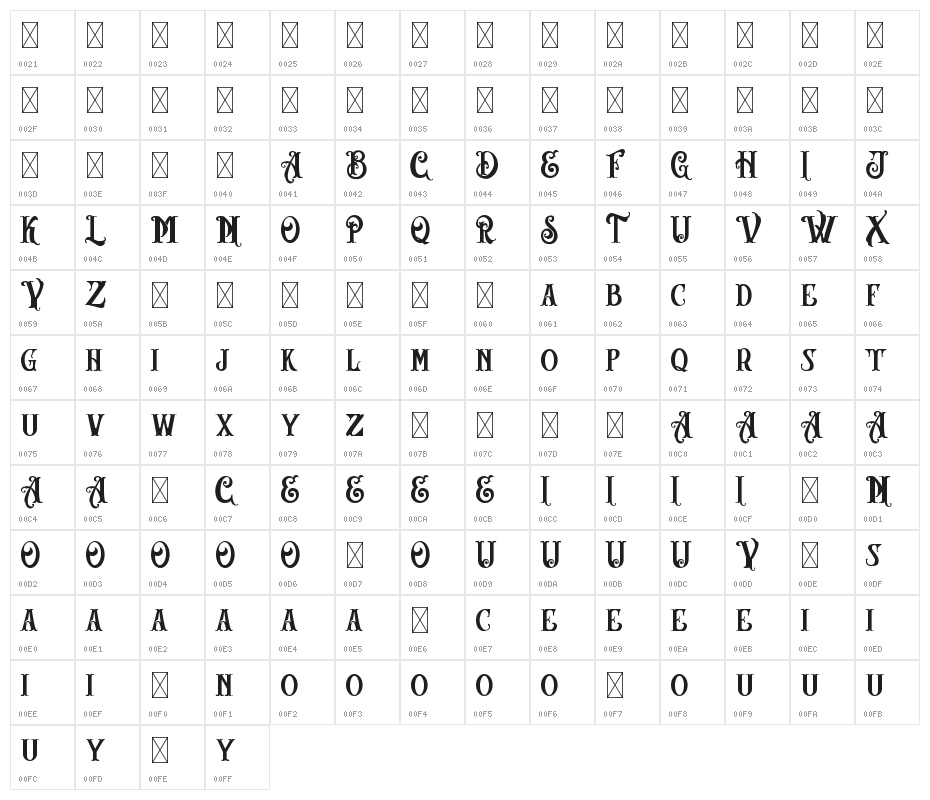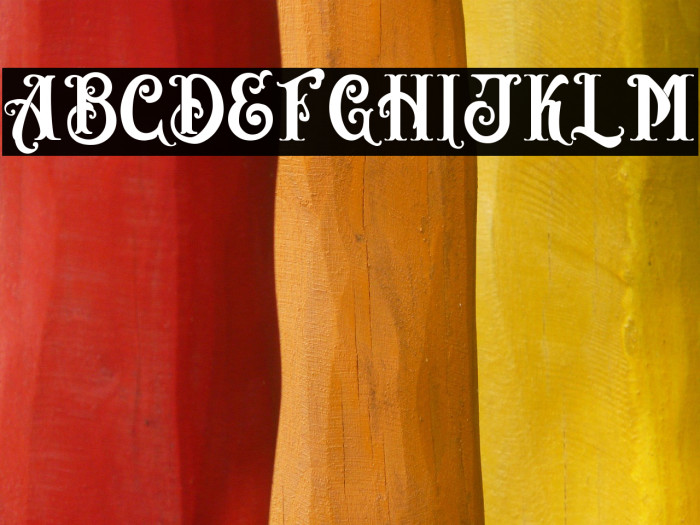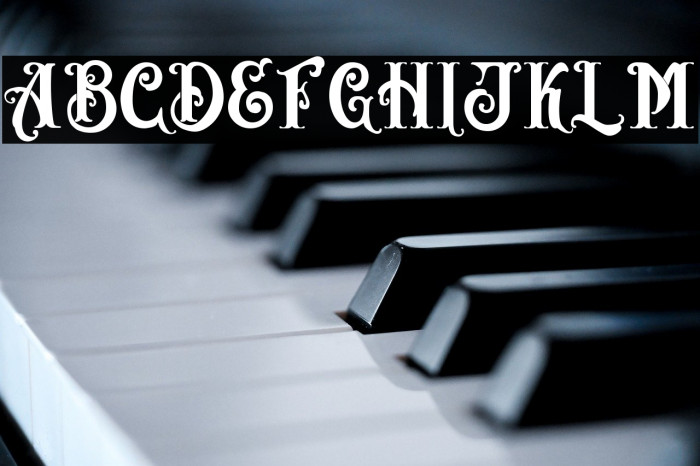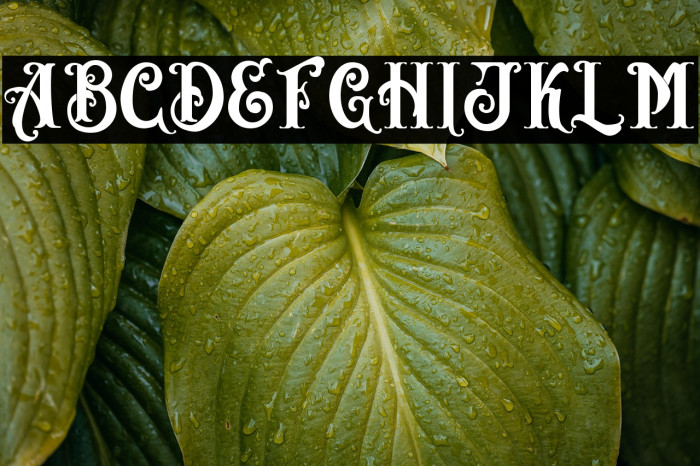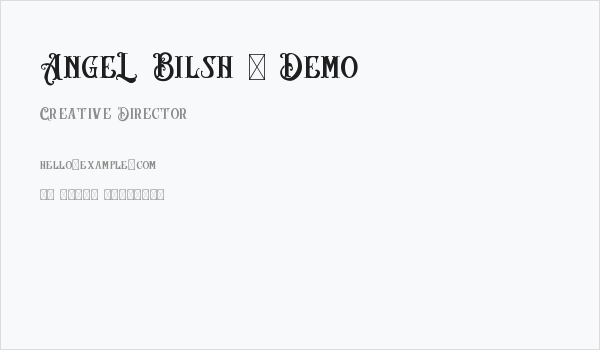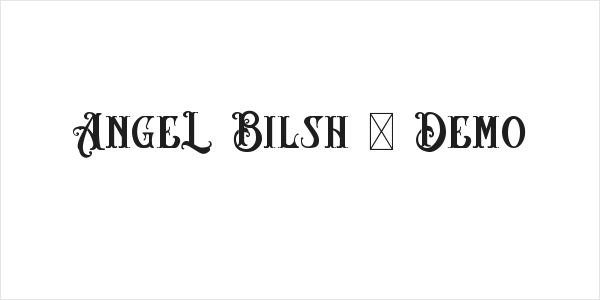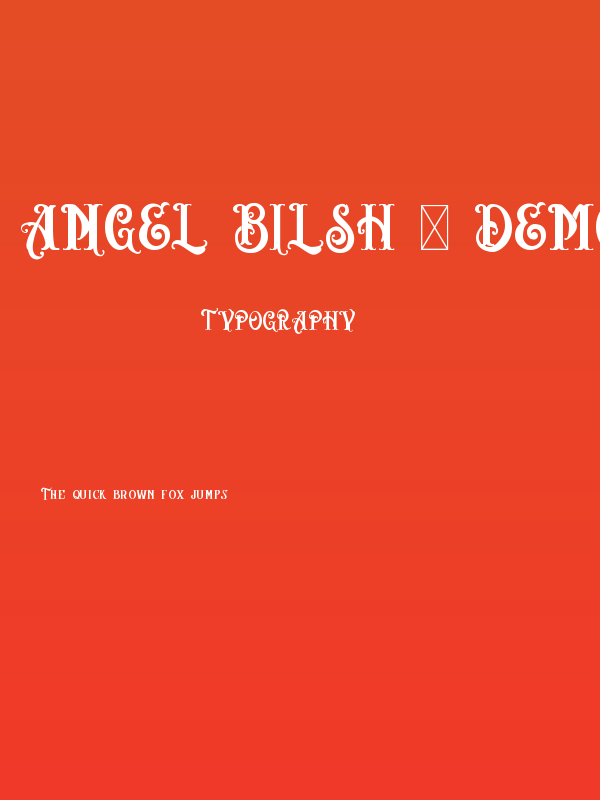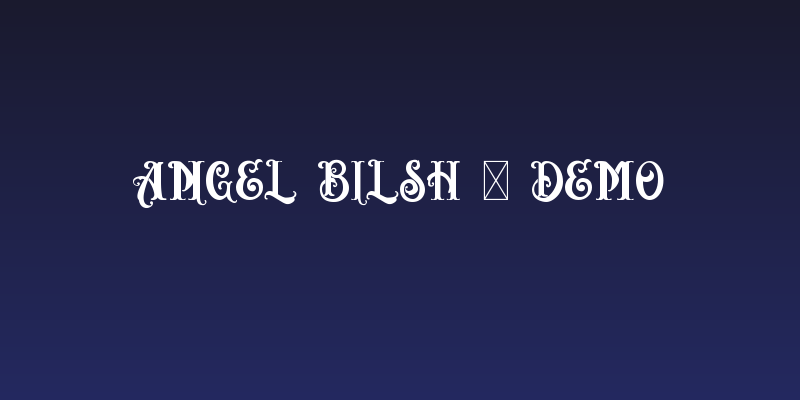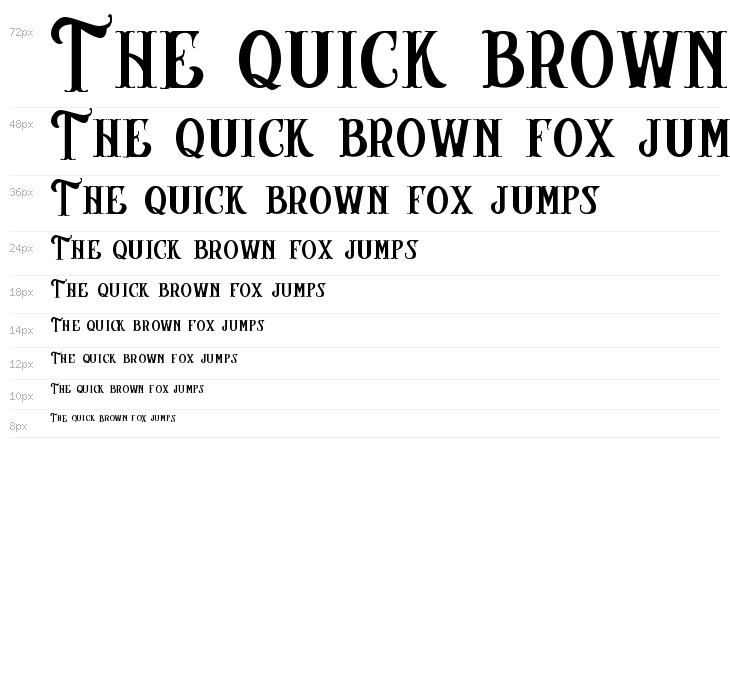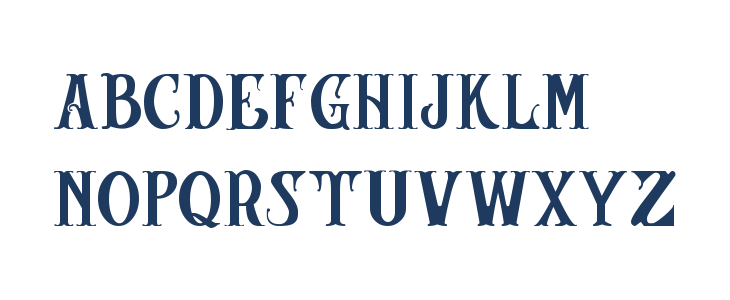
AngeL Bilsh - Demo Font
AngeL Bilsh - Demo Description
This font features a bold and decorative style with a distinct vintage flair. The uppercase letters are ornate, with intricate curves and flourishes that give it a unique and artistic appearance. The characters are well-defined, with a consistent stroke width that adds to its boldness. The font's design is reminiscent of old-world typography, making it suitable for projects that require a touch of elegance and sophistication. Its decorative nature makes it stand out, perfect for creating eye-catching headlines or logos.
| Proposed Projects | Ideal for vintage-themed posters, logos, book covers, and decorative signage. |